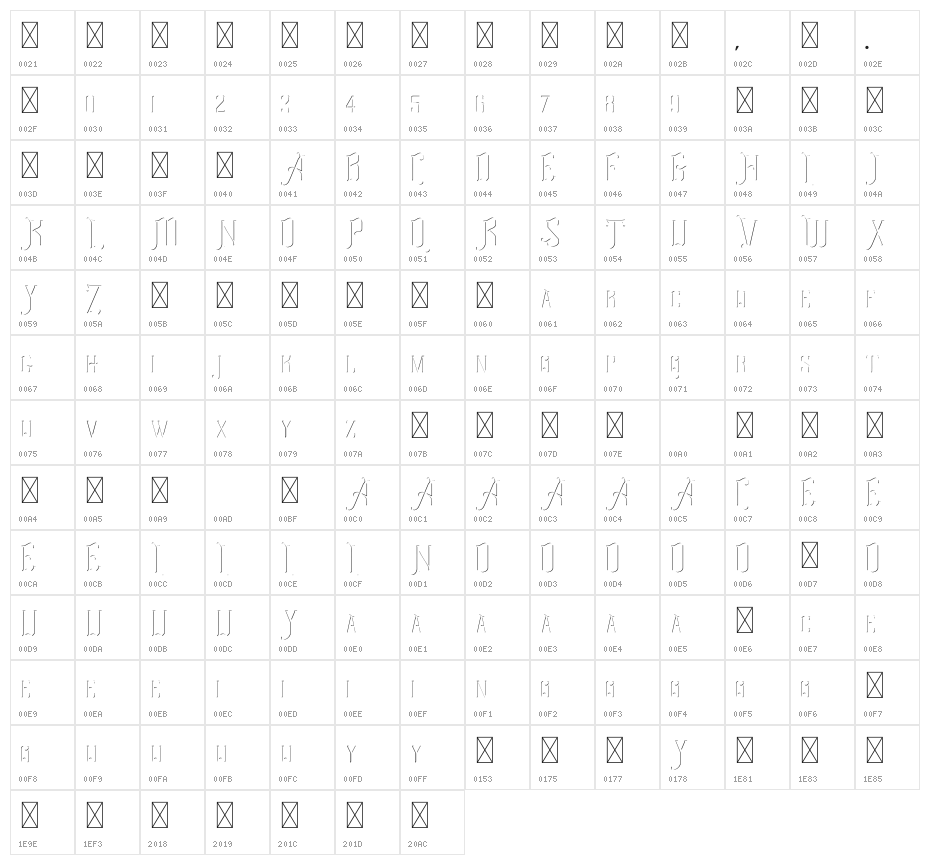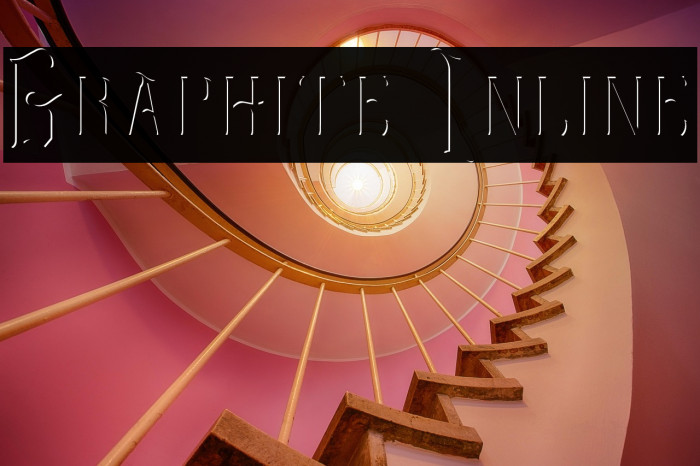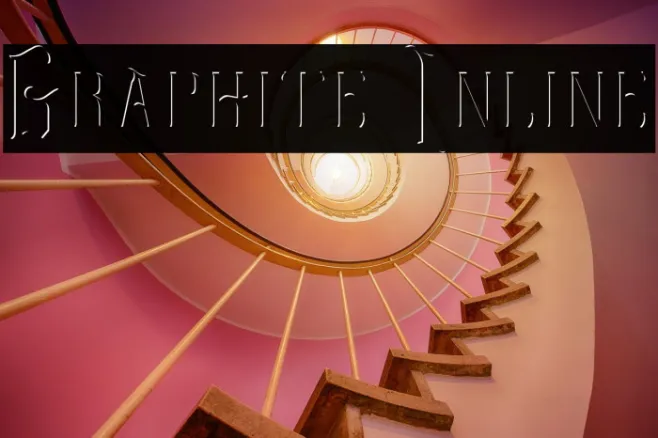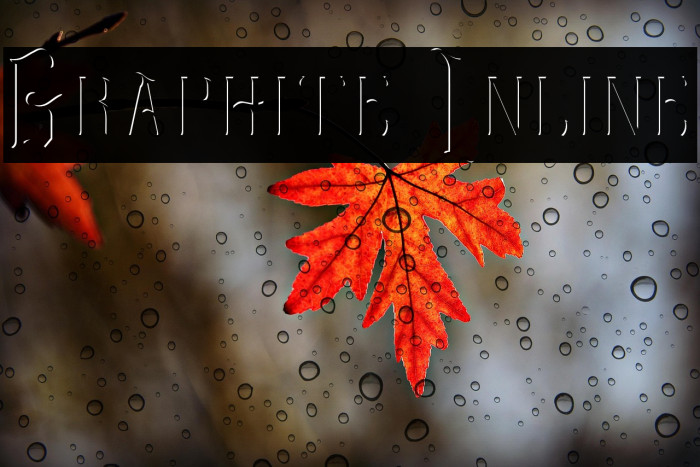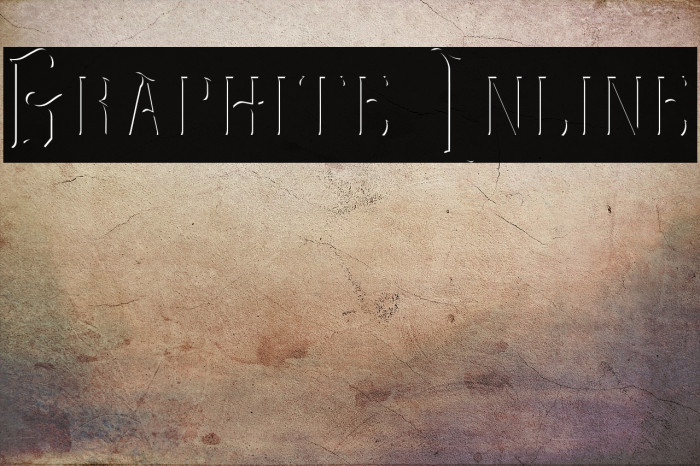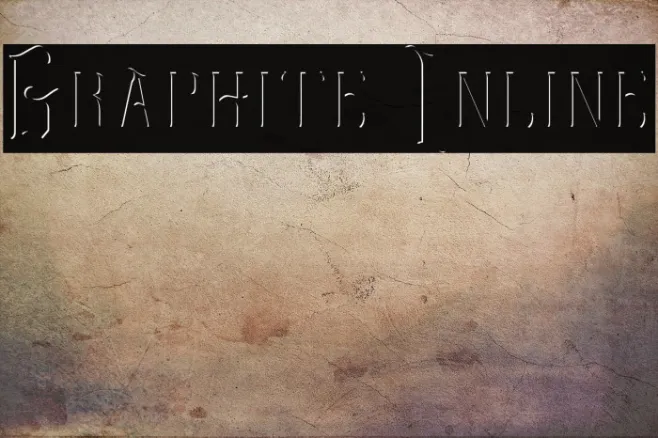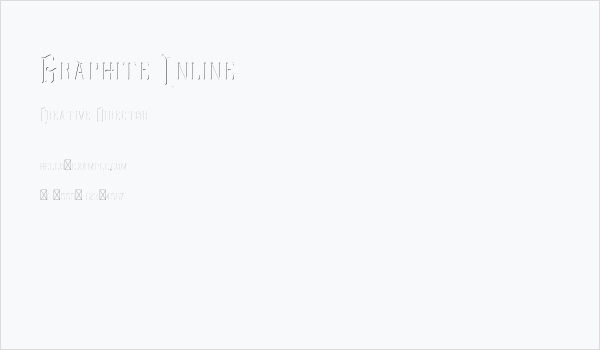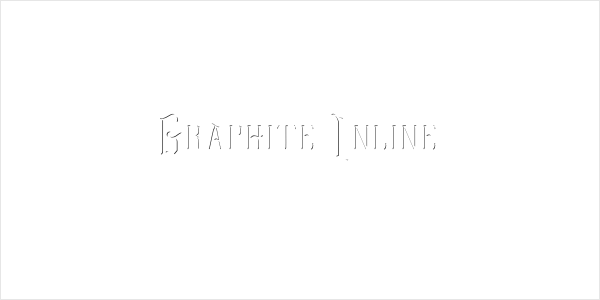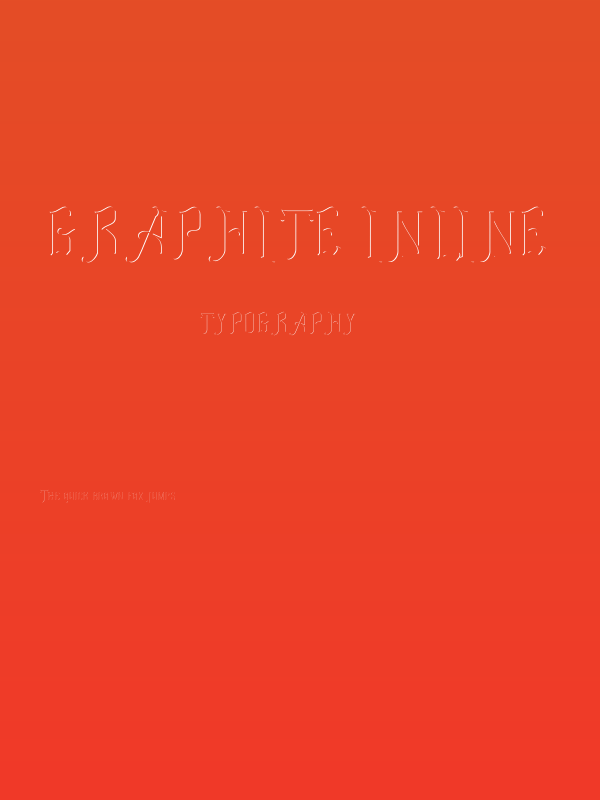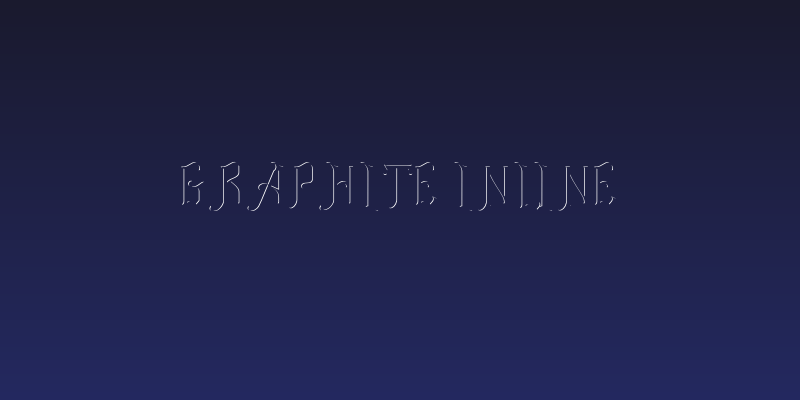
Graphite Inline Font
Graphite Inline Description
This font features a unique inline design with a modern twist, characterized by its geometric and angular shapes. Each letter is crafted with precision, incorporating sharp edges and a distinct inline cut that adds depth and dimension. The uppercase and lowercase letters maintain a consistent style, while the numerals and special characters follow suit, ensuring a cohesive look. The font's structure is both decorative and functional, making it suitable for a variety of creative applications. Its clean lines and contemporary aesthetic make it stand out, while the inline detail adds a touch of sophistication.
Proposed ProjectsIdeal for branding, posters, and editorial design where a modern and sophisticated look is desired.